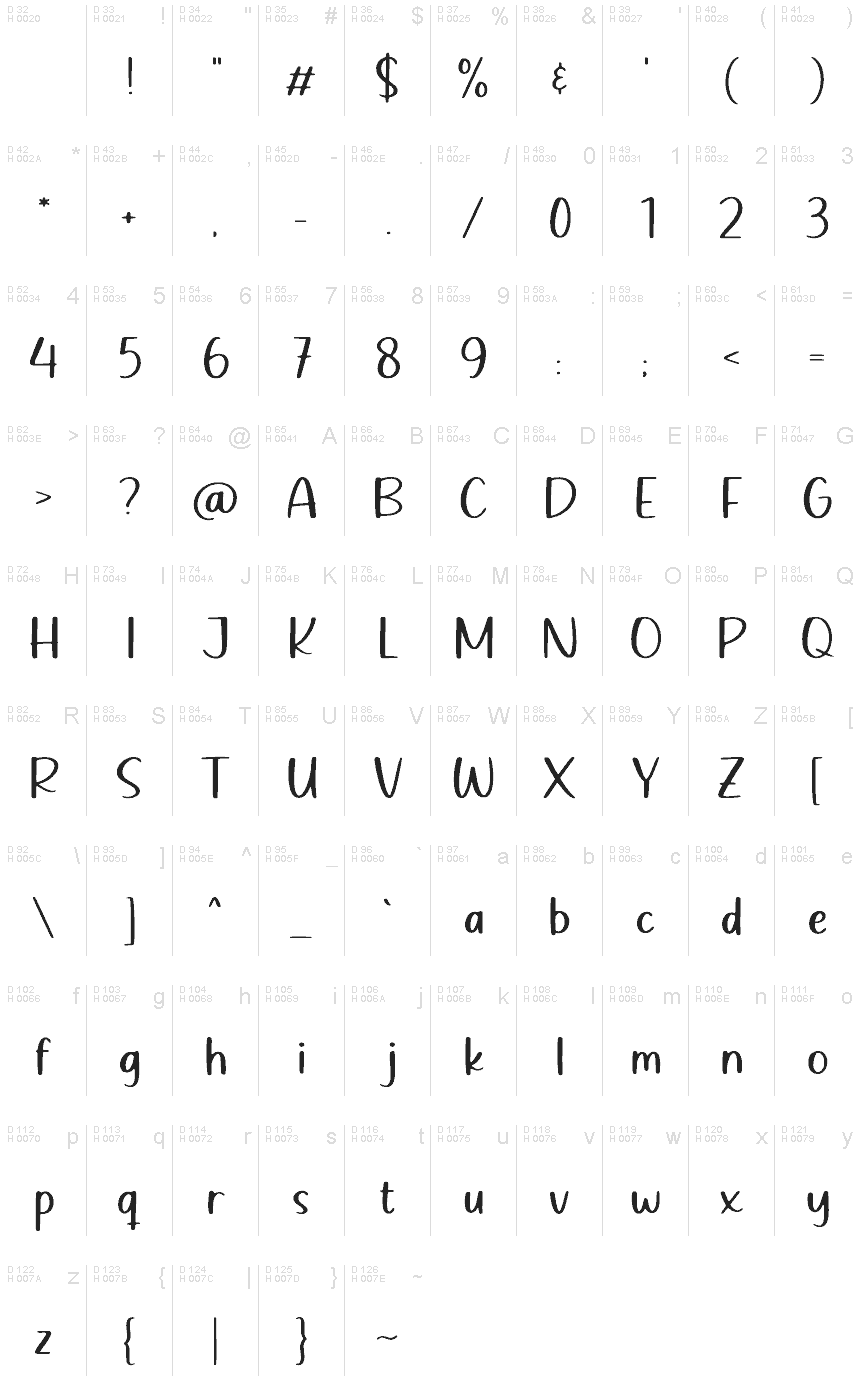
Jadibeken
Jadibeken font by Allouse Studio is a free handwritten font with a fun and casual style. It has an attractive combination of stylish modern elements that create a friendly atmosphere with each glyph. The overall appearance of Jadibeken seems pretty relaxed and approachable.
This typeface is ideal to use for t-shirt designs, product labels, logo designs, invitation cards, quotes, social media posts, website headlines, greeting cards, book covers, posters and any item you see fit on your next project.